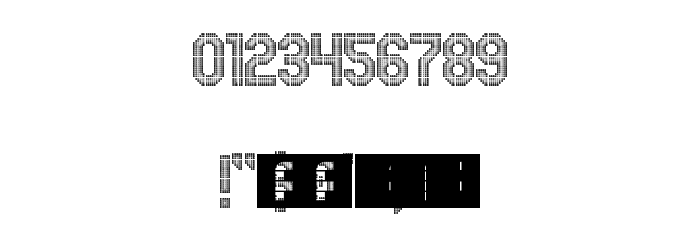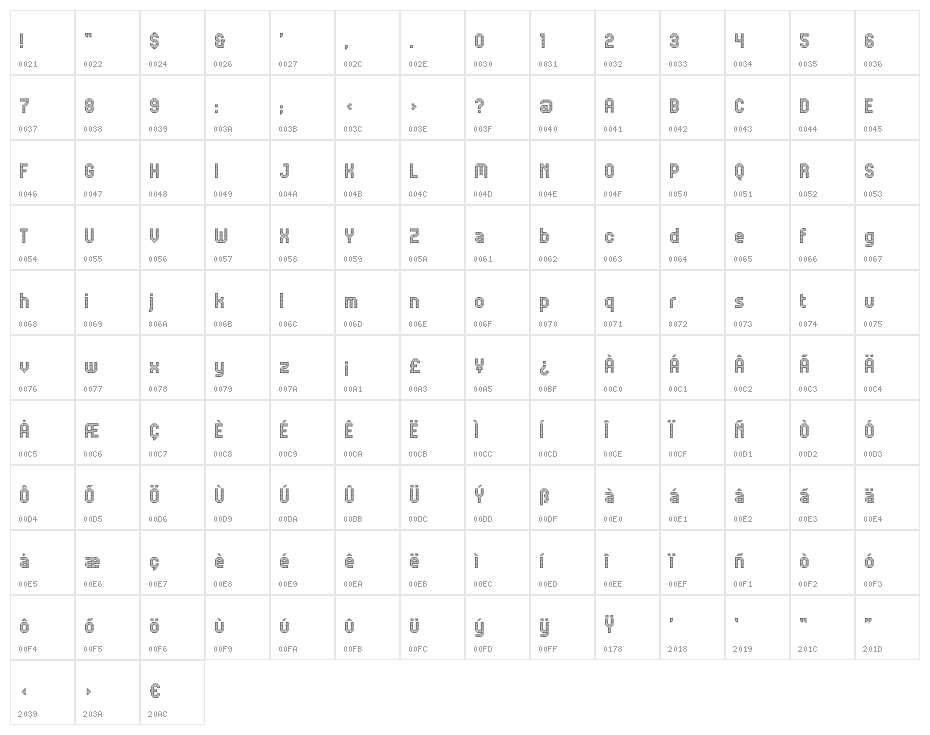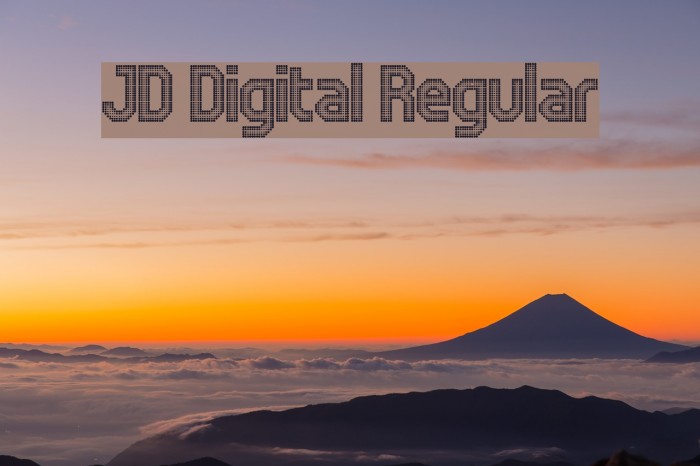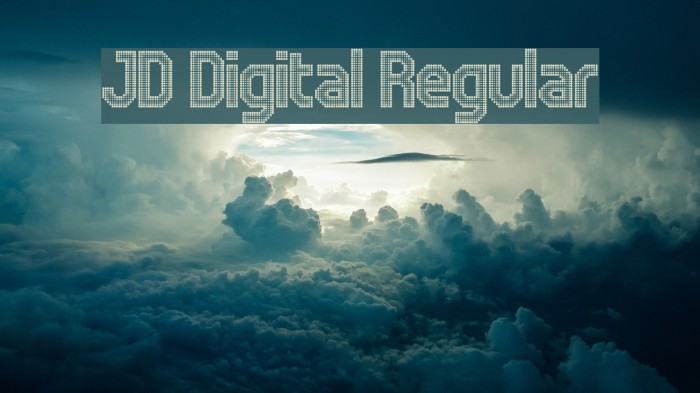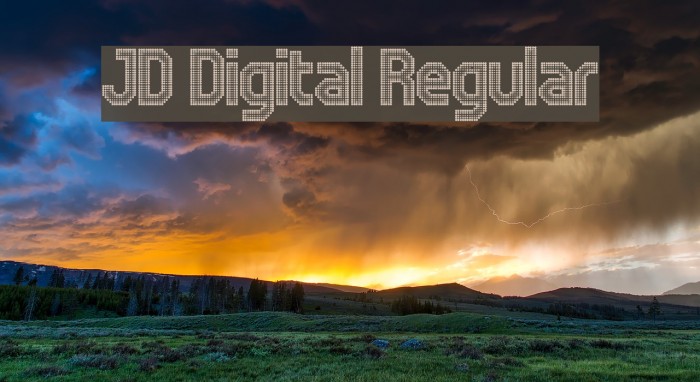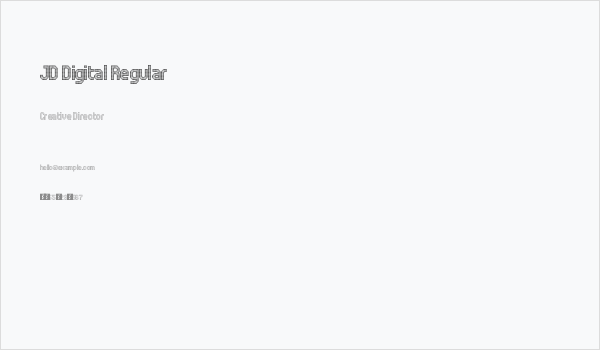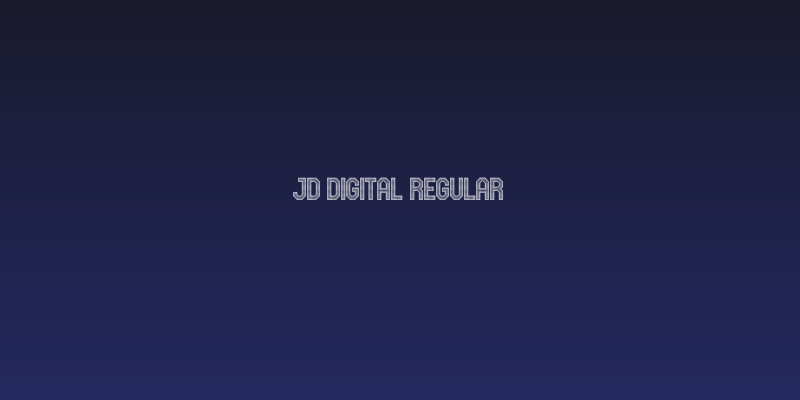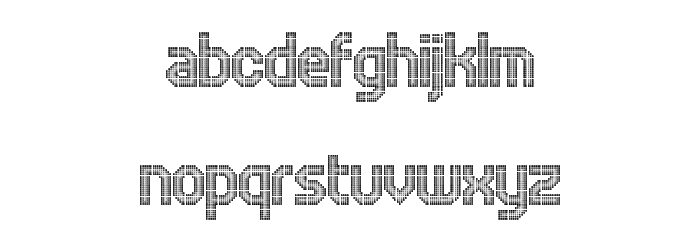
JD Digital Regular Font
JD Digital Regular Description
This font features a digital, pixelated design reminiscent of early computer displays and digital clocks. Each character is composed of a grid-like pattern, giving it a distinctly technological and retro feel. The uppercase and lowercase letters maintain a consistent style, with sharp edges and a uniform height that enhances readability. The numerals and special characters follow the same pixelated theme, ensuring a cohesive look across all text. This font's unique style makes it ideal for projects that require a digital or futuristic aesthetic.
| Overall Style | Retro, Technological |
| Use Case | Logos, Headlines, Digital Displays |
| Proposed Projects | Ideal for digital-themed projects, retro video games, tech-related branding, and futuristic designs. |